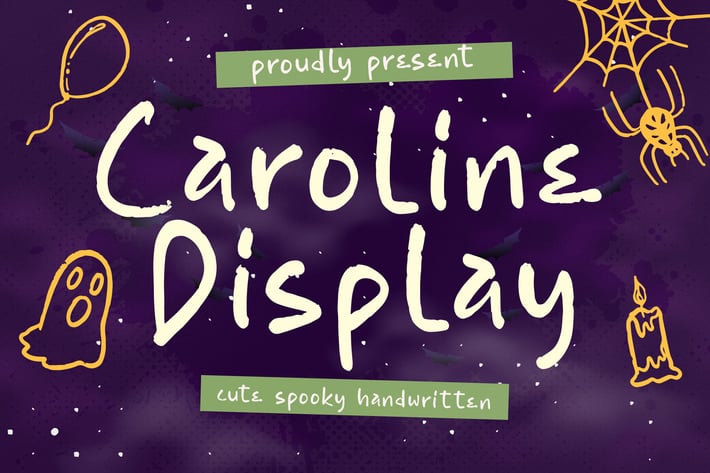
Caroline Display Handwritten Font
Caroline Display Handwritten Font brings a playful spooky vibe with its cute, irregular handwritten strokes — perfect for designs that need personality and a hint of Halloween charm. Whether you're crafting seasonal posters, fun social posts, branding concepts, or creative projects, this font adds a quirky and memorable touch to your visuals.
Playful spooky handwritten style
Cute, irregular, character-rich strokes
Smooth and readable display design
Works great for festive & themed graphics
Halloween-themed designs
Posters & flyers
Kids’ illustrations
Social media graphics
Branding with a playful vibe
Creative projects
* Stickers & merchandise
Add a spooky-cute twist to your designs with a handwritten font full of personality.